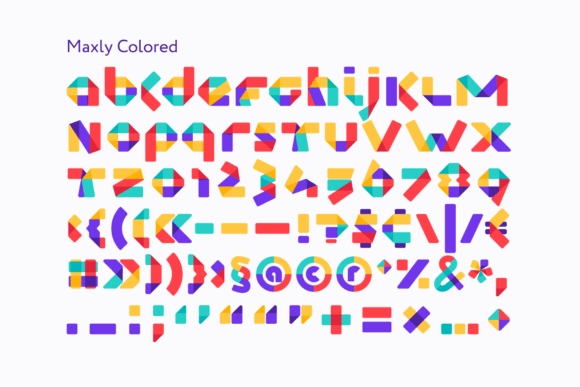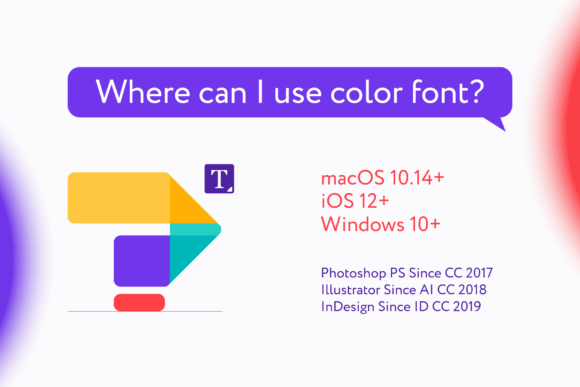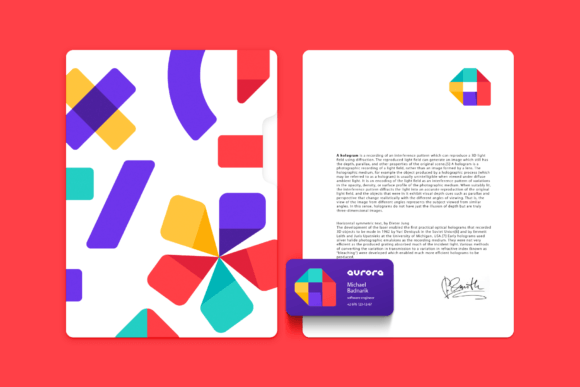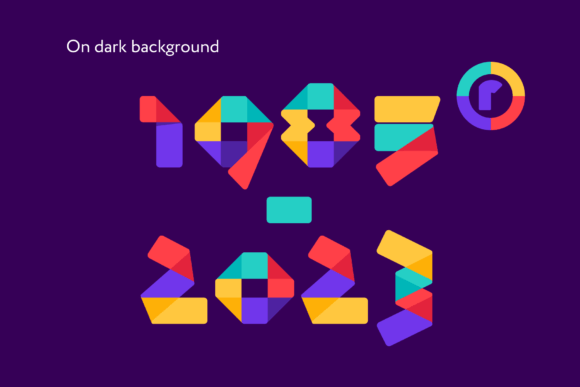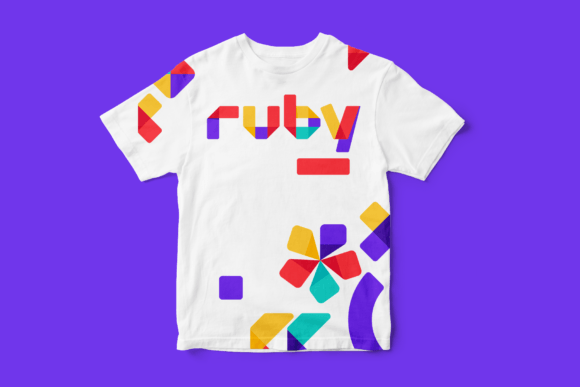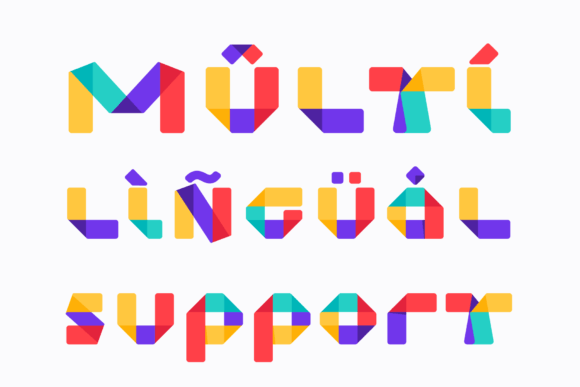
Maxly Font Font – Free Download
Introduction to Maxly Font Font
Fonts play a crucial role in design, and the Maxly Font font is a typeface that brings both character and versatility to any project. Whether you’re working on a branding project, a website, or a print design, the Maxly Font font offers a unique style that can elevate your work.
Maxly is a fun and bold display color font.
Whether youβre using it for crafting, digital designing, presentations, or greeting card making, itβs perfect Note.
Key Features of Maxly Font Font
Why Choose Maxly Font Font?
The Maxly Font font is more than just a typeface β it’s a design tool that helps you communicate your message with style and clarity. Its unique character set and versatile design make it suitable for a wide range of applications, from elegant invitations to bold headlines.
With its carefully crafted letterforms and balanced proportions, the Maxly Font font ensures readability and visual appeal across all mediums.
What makes Maxly Font font special?
The Maxly Font font stands out with its unique design, exceptional readability, and versatility across various design applications.